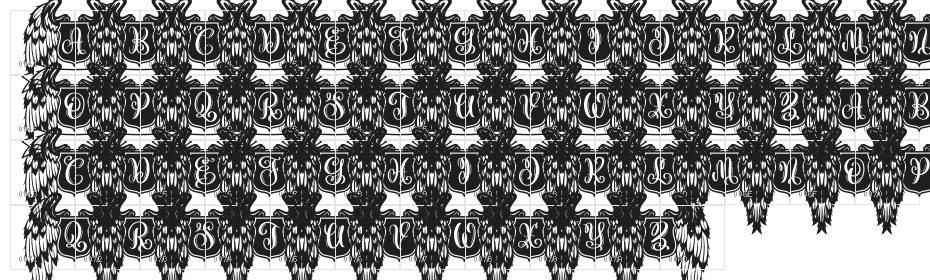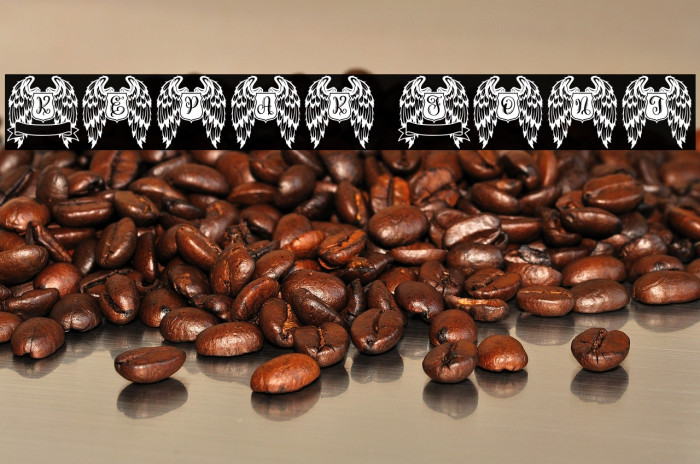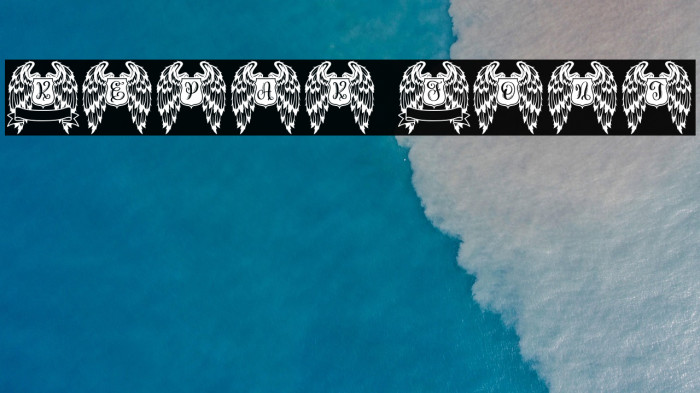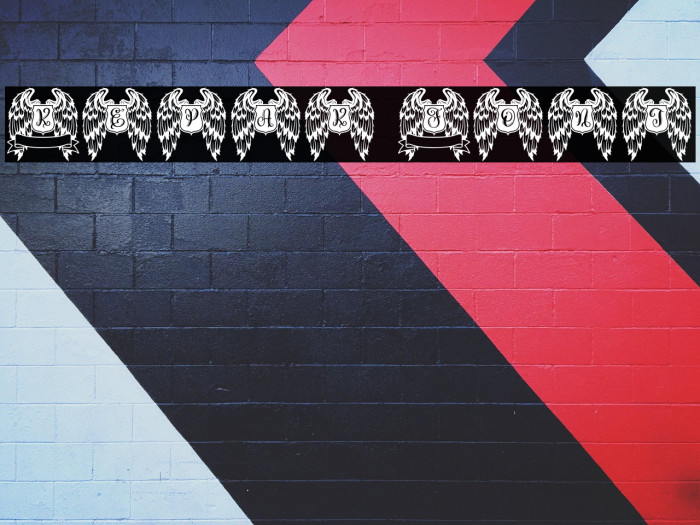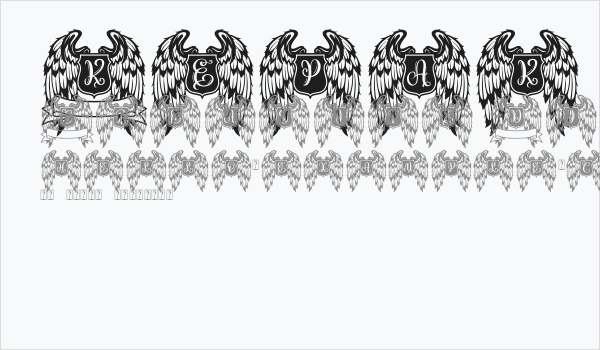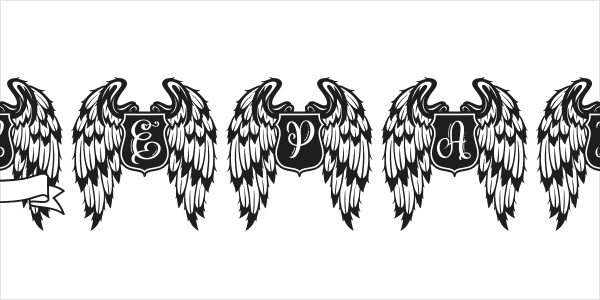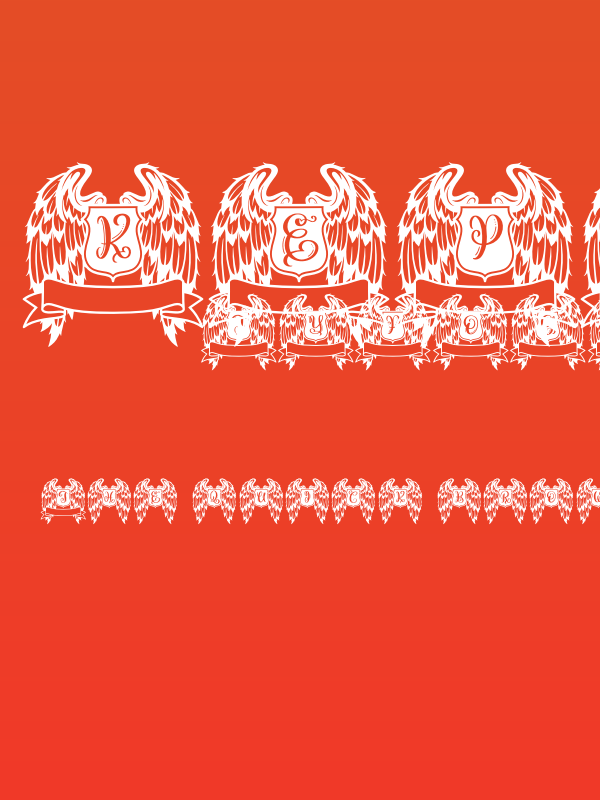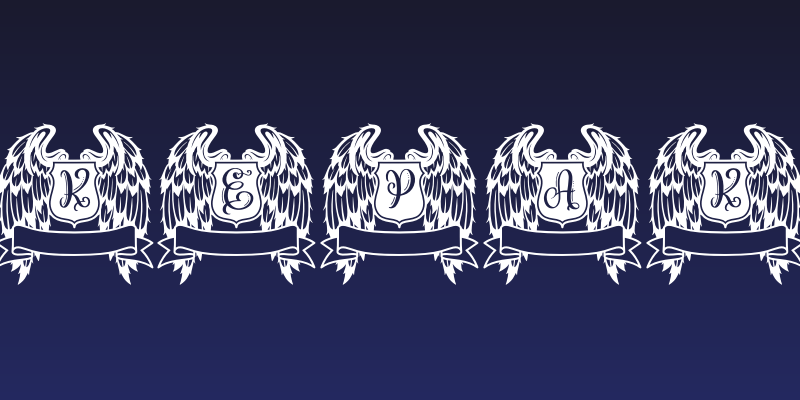
Kepak Font
Kepak Description
This font features a highly decorative and intricate design, with each character enclosed within a detailed frame that resembles ornate wings or foliage. The letters are bold and stylized, creating a sense of mystery and elegance. The overall appearance is reminiscent of gothic or fantasy themes, making it stand out with its unique and artistic flair. The characters are consistently framed, providing a uniform look across the alphabet. The special characters are represented by large question marks within similar frames, maintaining the decorative theme.
| Use Case | Logos, Posters, Book Covers |
| Proposed Projects | Ideal for fantasy-themed book covers, gothic event invitations, or decorative posters where a dramatic and artistic touch is desired. |